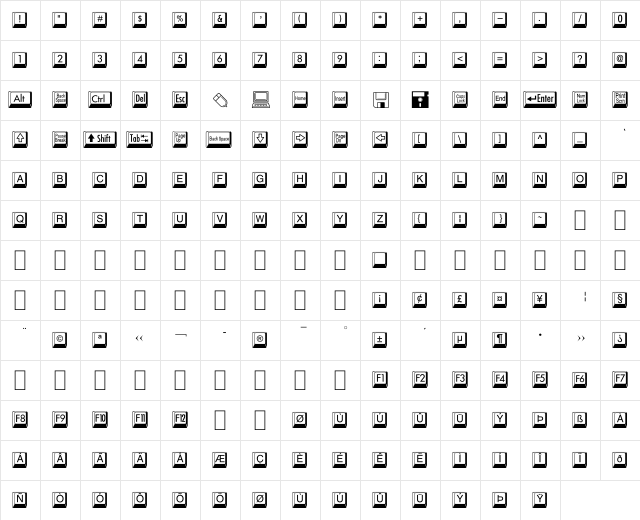
BD Keyboard Regular
Design Context for BD Keyboard Typeface
BD Keyboard is a composed and adaptable typeface that performs quietly and consistently across a wide range of design contexts. Its bold stroke weight gives it real presence on the page.